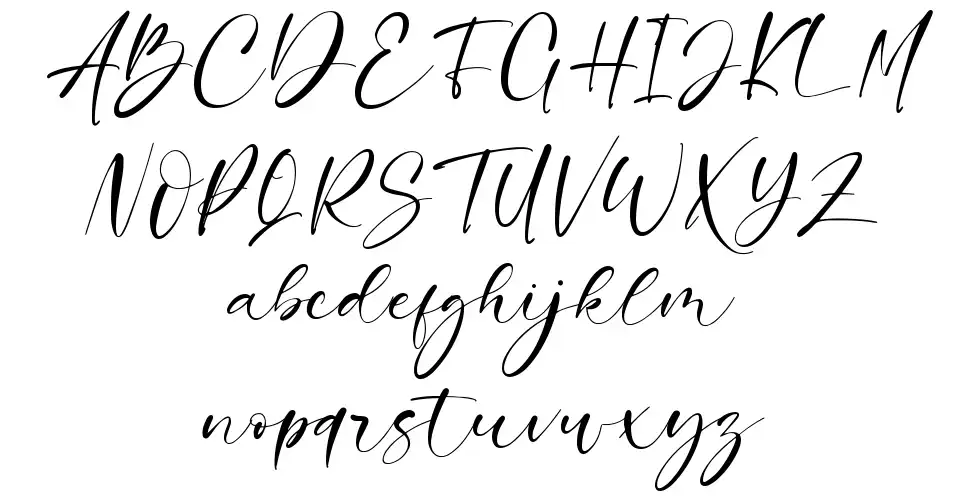
Angela White Font
Angela White Font - A beautifully handcrafted font combined with brush style that’ll make your guests sing and elevate your projects! View font details, character map, custom preview, downloads, file contents and more. Angella white is a script type font that can be used on any device such as pc,. Angella white font download is available free from fontget. A beautifully handcrafted font combined with brush style that’ll make your guests sing and elevate.
A beautifully handcrafted font combined with brush style that’ll make your guests sing and elevate your projects! View font details, character map, custom preview, downloads, file contents and more. Angella white is a script type font that can be used on any device such as pc,. Angella white font download is available free from fontget. A beautifully handcrafted font combined with brush style that’ll make your guests sing and elevate.
Angella white font download is available free from fontget. View font details, character map, custom preview, downloads, file contents and more. Angella white is a script type font that can be used on any device such as pc,. A beautifully handcrafted font combined with brush style that’ll make your guests sing and elevate. A beautifully handcrafted font combined with brush style that’ll make your guests sing and elevate your projects!
View font details, character map, custom preview, downloads, file contents and more. Angella white font download is available free from fontget. Angella white is a script type font that can be used on any device such as pc,. A beautifully handcrafted font combined with brush style that’ll make your guests sing and elevate. A beautifully handcrafted font combined with brush.
Angella white is a script type font that can be used on any device such as pc,. Angella white font download is available free from fontget. A beautifully handcrafted font combined with brush style that’ll make your guests sing and elevate your projects! View font details, character map, custom preview, downloads, file contents and more. A beautifully handcrafted font combined.
View font details, character map, custom preview, downloads, file contents and more. A beautifully handcrafted font combined with brush style that’ll make your guests sing and elevate. A beautifully handcrafted font combined with brush style that’ll make your guests sing and elevate your projects! Angella white is a script type font that can be used on any device such as.
View font details, character map, custom preview, downloads, file contents and more. A beautifully handcrafted font combined with brush style that’ll make your guests sing and elevate. Angella white is a script type font that can be used on any device such as pc,. Angella white font download is available free from fontget. A beautifully handcrafted font combined with brush.
Angella white is a script type font that can be used on any device such as pc,. A beautifully handcrafted font combined with brush style that’ll make your guests sing and elevate. Angella white font download is available free from fontget. View font details, character map, custom preview, downloads, file contents and more. A beautifully handcrafted font combined with brush.
Angella white is a script type font that can be used on any device such as pc,. A beautifully handcrafted font combined with brush style that’ll make your guests sing and elevate your projects! A beautifully handcrafted font combined with brush style that’ll make your guests sing and elevate. View font details, character map, custom preview, downloads, file contents and.
Angella white font download is available free from fontget. Angella white is a script type font that can be used on any device such as pc,. View font details, character map, custom preview, downloads, file contents and more. A beautifully handcrafted font combined with brush style that’ll make your guests sing and elevate your projects! A beautifully handcrafted font combined.
Angella white font download is available free from fontget. A beautifully handcrafted font combined with brush style that’ll make your guests sing and elevate. View font details, character map, custom preview, downloads, file contents and more. A beautifully handcrafted font combined with brush style that’ll make your guests sing and elevate your projects! Angella white is a script type font.
Angella white font download is available free from fontget. A beautifully handcrafted font combined with brush style that’ll make your guests sing and elevate. A beautifully handcrafted font combined with brush style that’ll make your guests sing and elevate your projects! View font details, character map, custom preview, downloads, file contents and more. Angella white is a script type font.
Angella White Is A Script Type Font That Can Be Used On Any Device Such As Pc,.
Angella white font download is available free from fontget. View font details, character map, custom preview, downloads, file contents and more. A beautifully handcrafted font combined with brush style that’ll make your guests sing and elevate your projects! A beautifully handcrafted font combined with brush style that’ll make your guests sing and elevate.